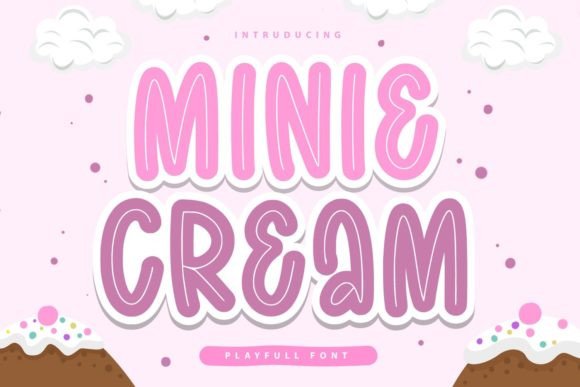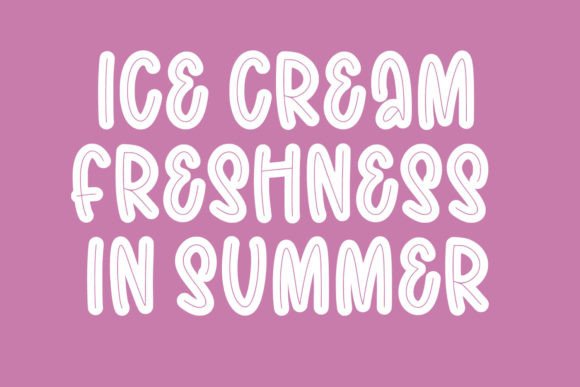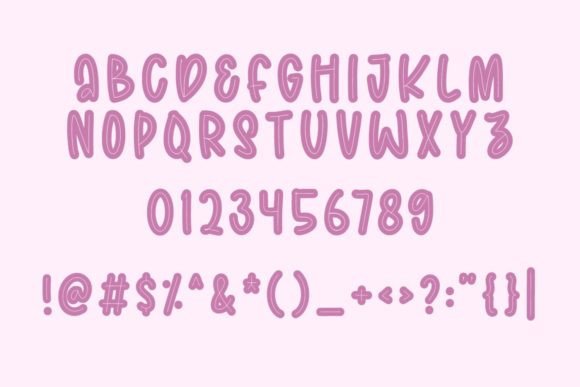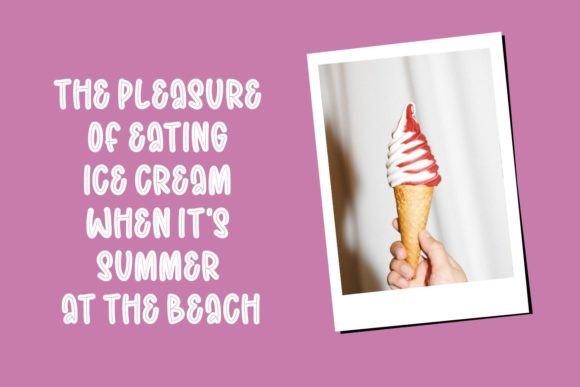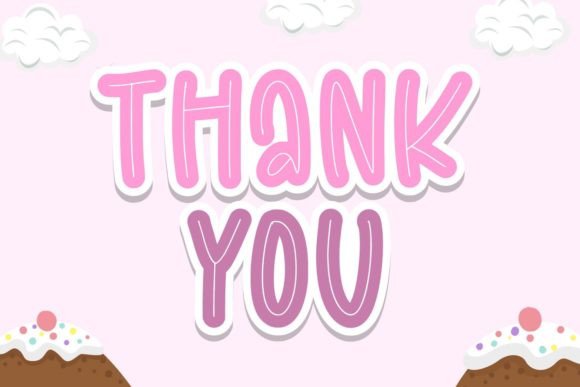
Minie Cream Font
About Minie Cream Font
Minie Cream is a laid-back and relaxed handwritten font that exudes a sense of coolness and informality. Its versatility and easygoing style make it a valuable addition to your font library, as it has the potential to enhance any creative endeavor, regardless of the topic or theme.
This font’s casual charm makes it a versatile choice for a wide range of design applications. Whether you’re working on branding, social media graphics, packaging, quotes, or any other creative project, Minie Cream brings a relaxed and approachable vibe to your work.
In the context of branding, Minie Cream introduces a friendly and casual script that can effectively represent your brand identity. Whether used for logos, promotional materials, or corporate identity, this font adds a relaxed and relatable element to your brand.
Social media graphics benefit from Minie Cream’s cool and casual aesthetics, allowing your posts and visuals to connect with audiences in a laid-back and approachable manner. It helps you create content that resonates with a wide range of viewers.
Packaging designs can benefit from Minie Cream’s relaxed style, making your products appear more approachable and relatable to consumers. It adds a touch of casual charm to your packaging, making it stand out on the shelves.
Quotes and inspirational messages become more relatable and down-to-earth with Minie Cream. Its casual handwritten script adds authenticity and approachability to your words, making them more engaging.
Minie Cream’s versatility and casual appeal make it a valuable asset for various design projects. Its ability to convey a sense of coolness and informality makes it an invaluable tool for designers and creatives looking to create approachable and relatable designs.